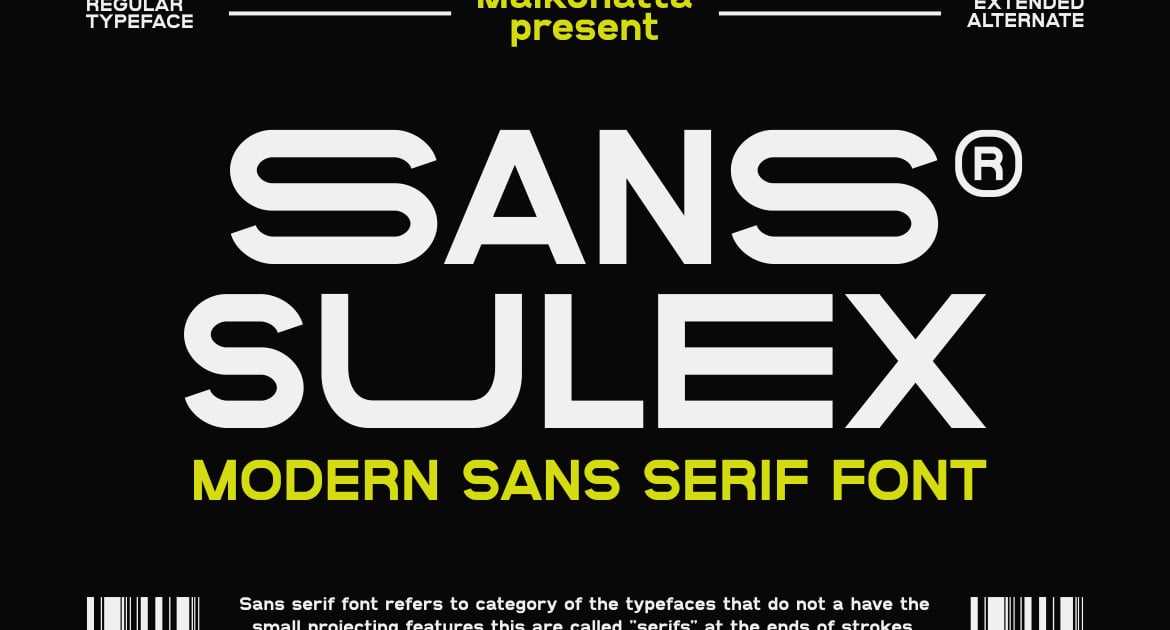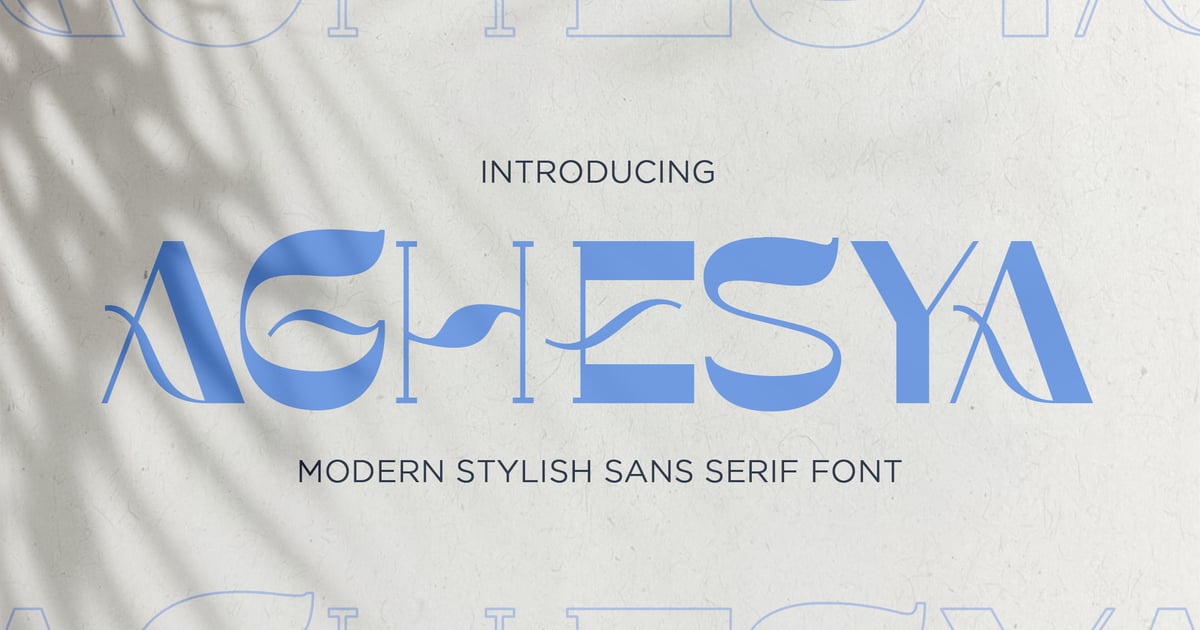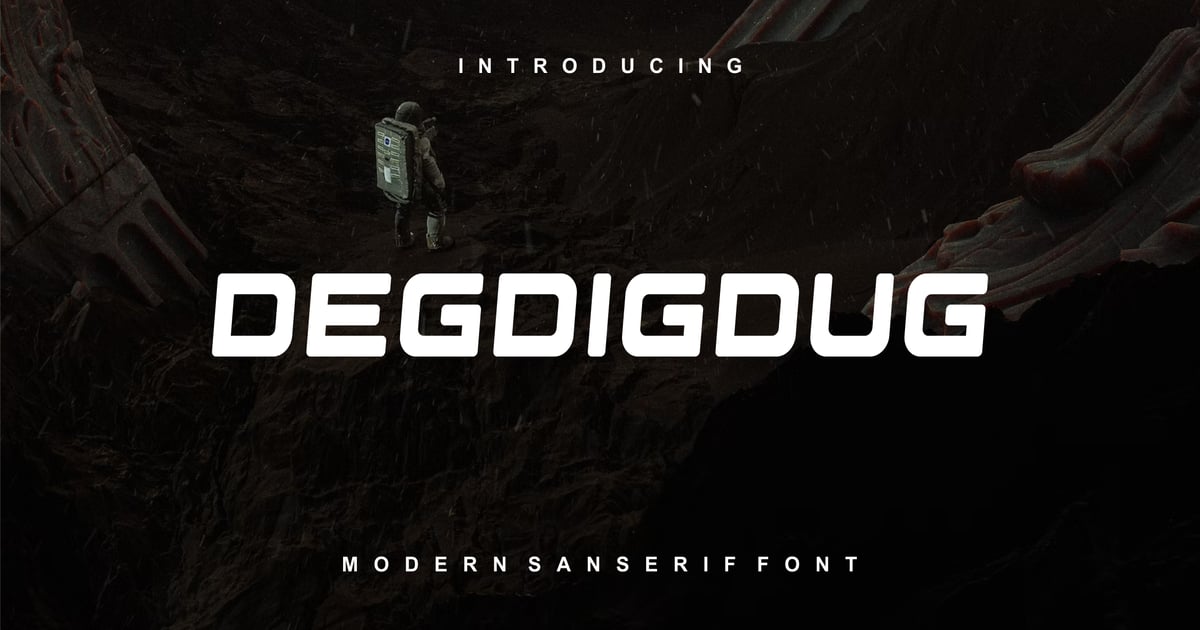
Open ten apps on your phone right now and count how many use a serif in their logo. I’ll wait. If you’re like most people, you land somewhere around zero — and that’s not an accident. Sans serif type has quietly taken over branding, UI, and packaging because it does something serifs can’t: get out of the way. It reads clean on a four-inch screen, holds up printed six feet tall, and never distracts from the message underneath it.
Below, I’ve rounded up some of my favorite modern and legible sans serif fonts for 2026, grouped by exactly what you’d use each one for — branding, UI, business, headlines, or all of the above.
How I Chose These Modern Sans Serif Fonts
Not every sans serif deserves a spot on a list like this, so here’s what I looked for. Legibility at small sizes matters more than it used to, since most people will meet your typography on a five-inch screen before anywhere else. A font needs a genuine range of weights and styles to carry a full brand system, not just look good in a headline. It has to hold up across both print and digital, from a business card to a mobile app icon. And it needs a distinctive character — something that feels like an intentional choice, not a default.
Here are some of my recent favorite finds.
Behavior – Modern Sans Serif
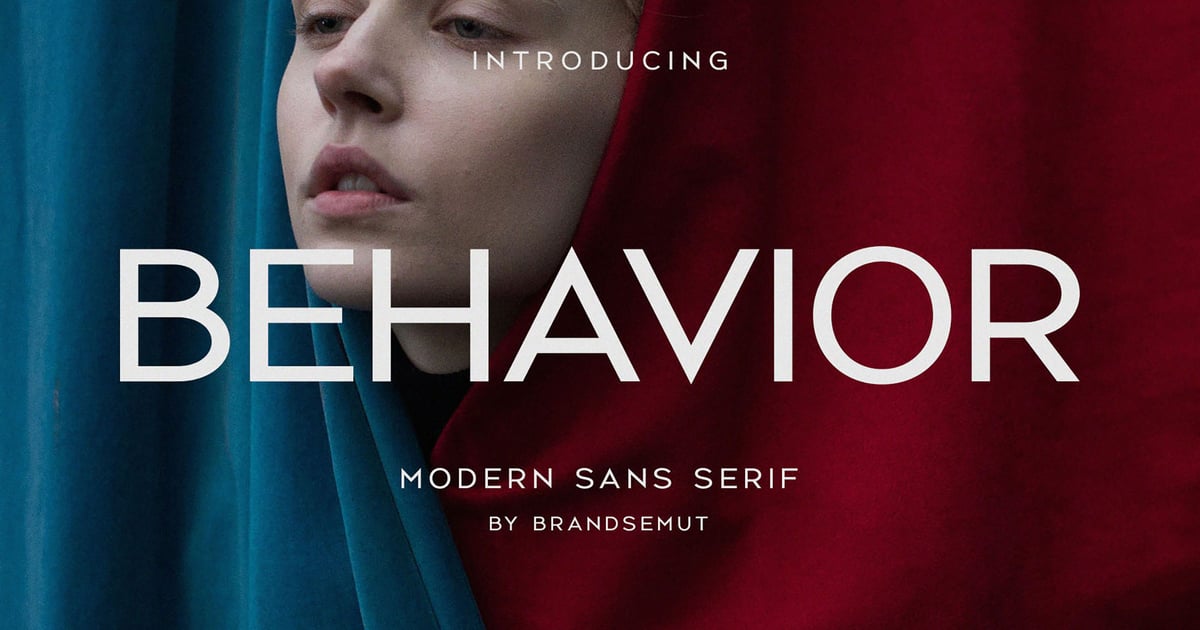
Behavior is a modern sans serif font that brings clean geometry and contemporary sophistication to editorial layouts, branding projects, and digital interfaces. Its balanced letterforms strike an ideal middle ground between approachability and professionalism, making it equally suited for headlines and body copy. The family includes both sans and logotype variations, offering designers flexibility for cohesive visual systems. With its streamlined aesthetic and versatile weight options, Behavior adapts seamlessly across corporate identities, magazine spreads, and web applications where clarity and modern elegance are essential.
Dearly – Modern Sans Serif
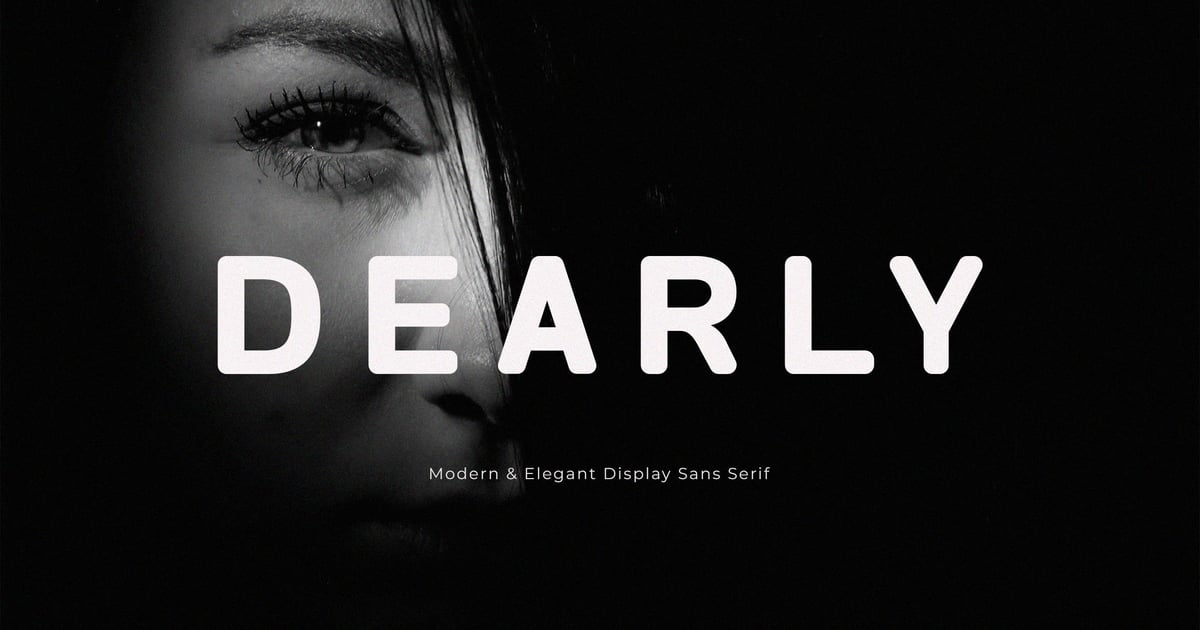
Dearly brings a refined, contemporary edge to typographic design with clean lines and carefully balanced proportions. This modern sans serif font works beautifully across branding projects, editorial layouts, and digital interfaces where clarity and sophistication matter. Its geometric forms maintain readability at any size while adding a polished, professional feel to headlines and body text alike. The typeface includes both standard character sets and logotype variations, giving designers flexibility for wordmarks and visual identities. Perfect for projects seeking an understated yet distinctly current aesthetic.
Dileto | Modern Sans Serif
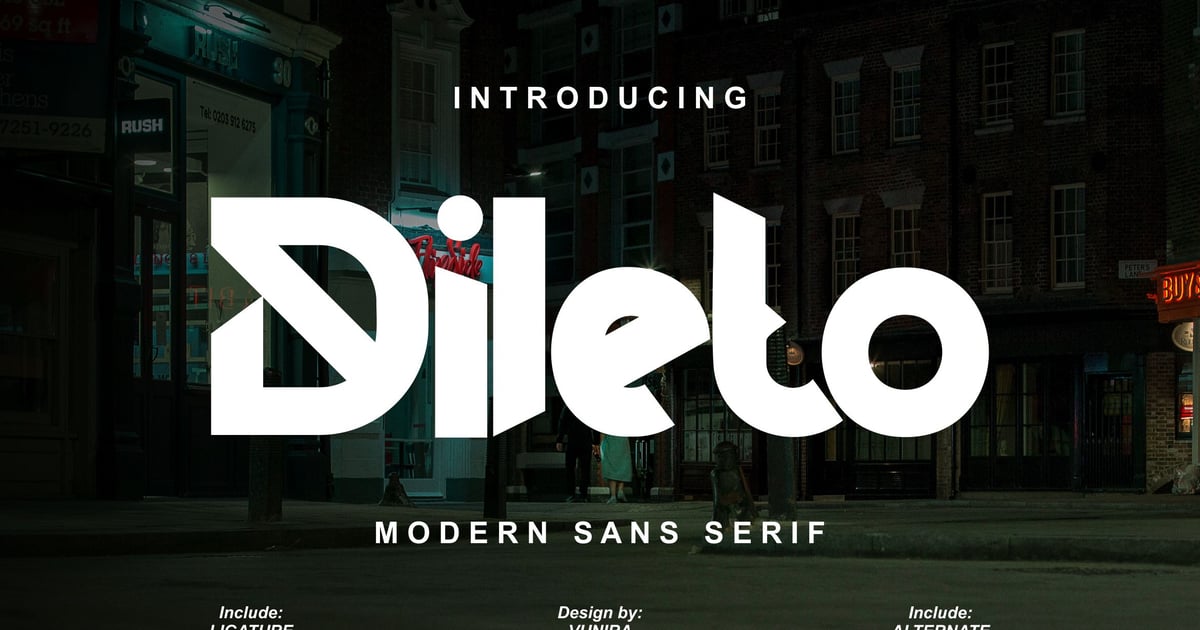
Dileto brings clean geometric shapes and contemporary styling to text-heavy projects. This modern sans serif font balances minimalist letterforms with approachable warmth, making it equally suitable for editorial layouts, website interfaces, and brand identity systems. The typeface includes a full character set with multilingual language support, offering designers flexibility across international projects. Its structured yet friendly appearance works particularly well in tech branding, magazine headlines, and modern packaging design. Files are provided in both TTF and OTF formats for broad compatibility across design applications.
Dazney – Modern Sans Serif
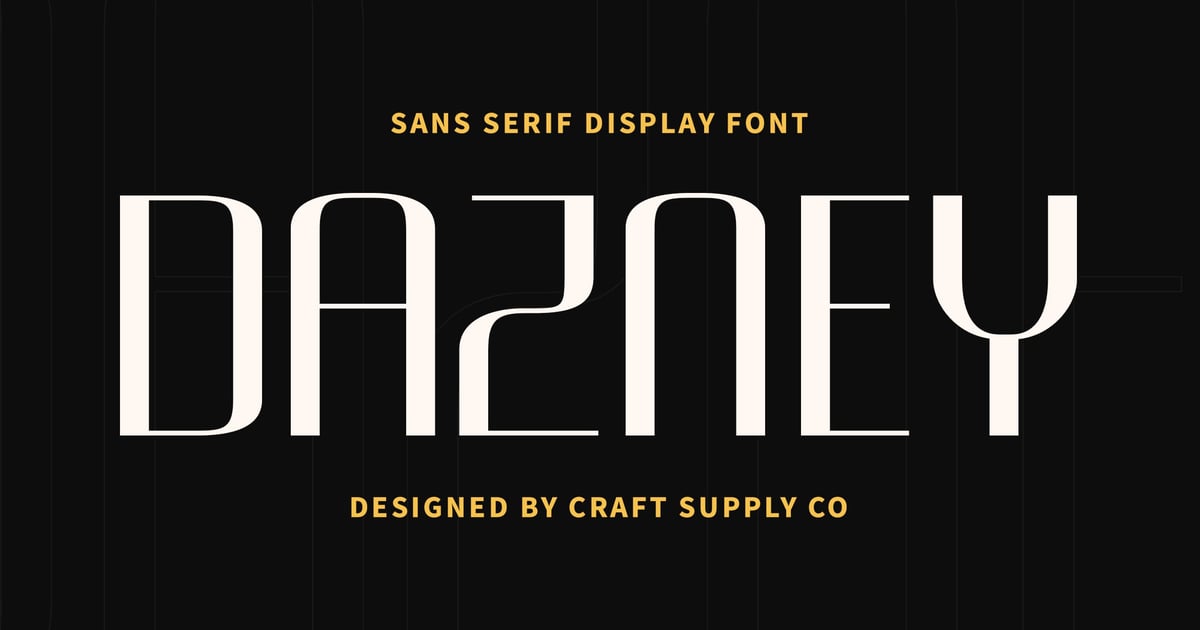
Dazney is a clean, contemporary typeface that brings sophistication to editorial design and branding projects. This modern sans serif font features balanced letterforms and geometric precision, making it ideal for magazine layouts, minimalist websites, and corporate identity systems. The family supports multiple languages and includes uppercase and lowercase characters, numbers, and punctuation marks. Its versatility shines in both headlines and body text, while the straightforward aesthetic ensures readability across print and digital media. Available in standard font formats for immediate use in professional design applications.
Modeling – Modern Fashion Sans Serif
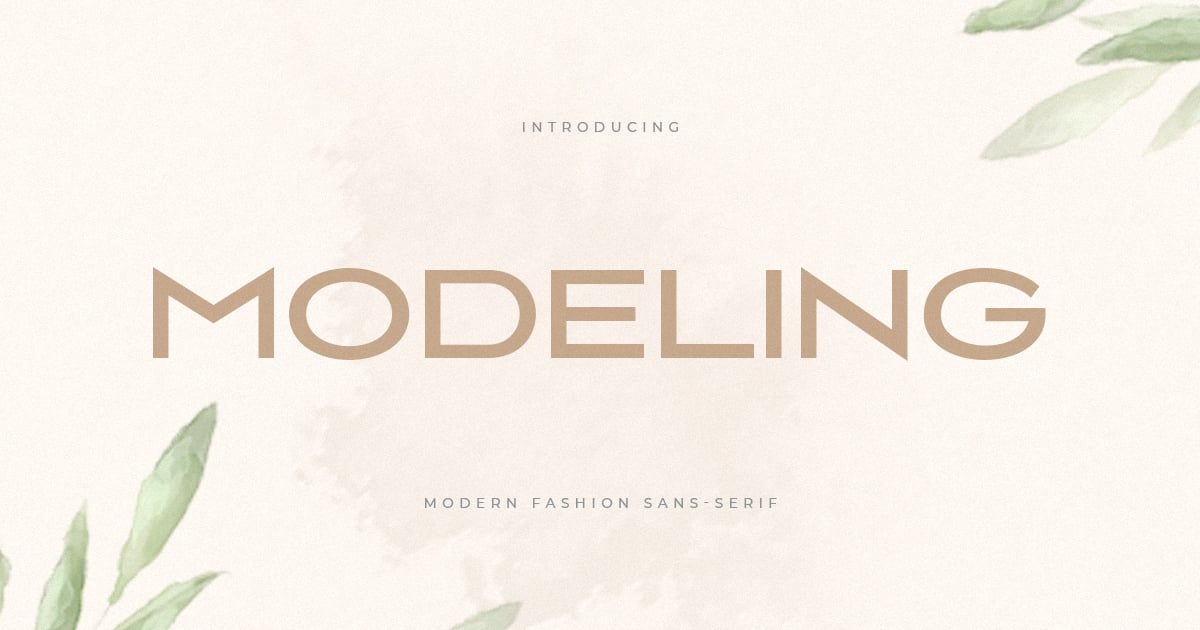
Modeling brings sophisticated minimalism to contemporary fashion branding with its clean, elevated letterforms. This modern sans serif font balances geometric precision with subtle refinements that feel both runway-ready and accessible. The typeface excels in editorial layouts, luxury product packaging, cosmetics branding, and high-end social media content where elegance matters. Its streamlined characters maintain clarity across sizes while projecting an upscale, fashion-forward sensibility. Perfect for designers seeking a polished, contemporary aesthetic that speaks to style-conscious audiences without overwhelming the visual narrative.
Modo – Modern Minimal Sans Serif Font
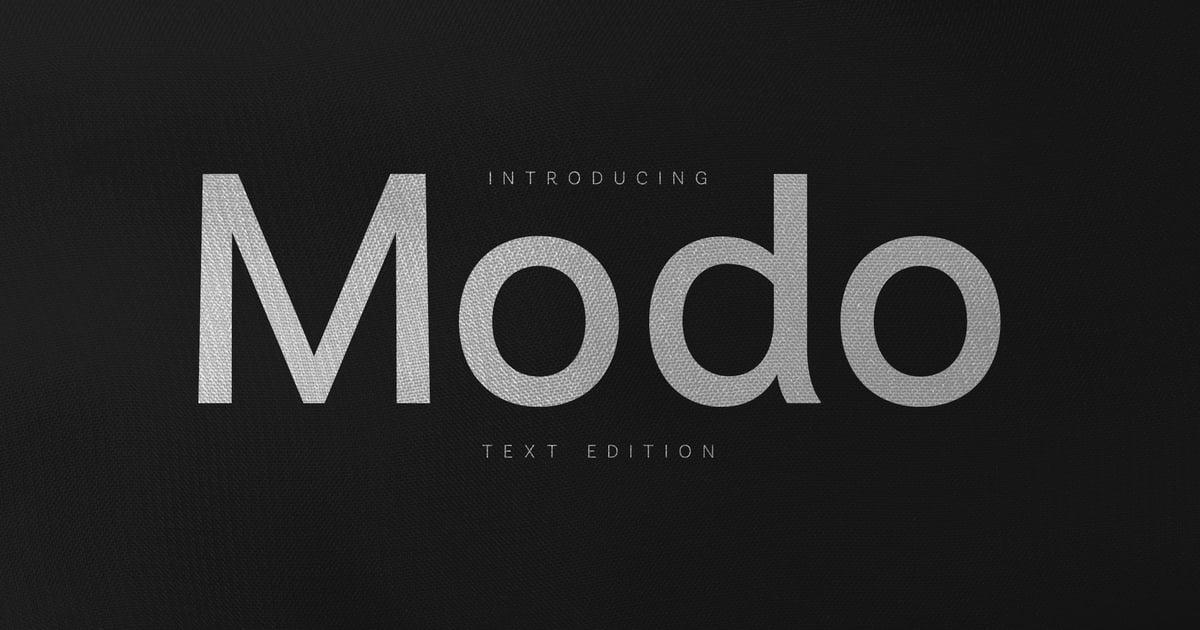
Modo is a sleek modern sans serif font built on principles of simplicity and geometric precision. Its clean lines and minimalist aesthetic make it ideal for contemporary branding, editorial layouts, and digital interfaces where clarity matters most. The typeface strips away unnecessary ornamentation while maintaining excellent readability across print and screen applications. Perfect for tech startups, fashion labels, or architectural portfolios seeking a refined, understated voice. Modo works beautifully in both display sizes and body text, offering designers a versatile tool for projects demanding sophistication without excess.
Break Makers Modern Sans Serif
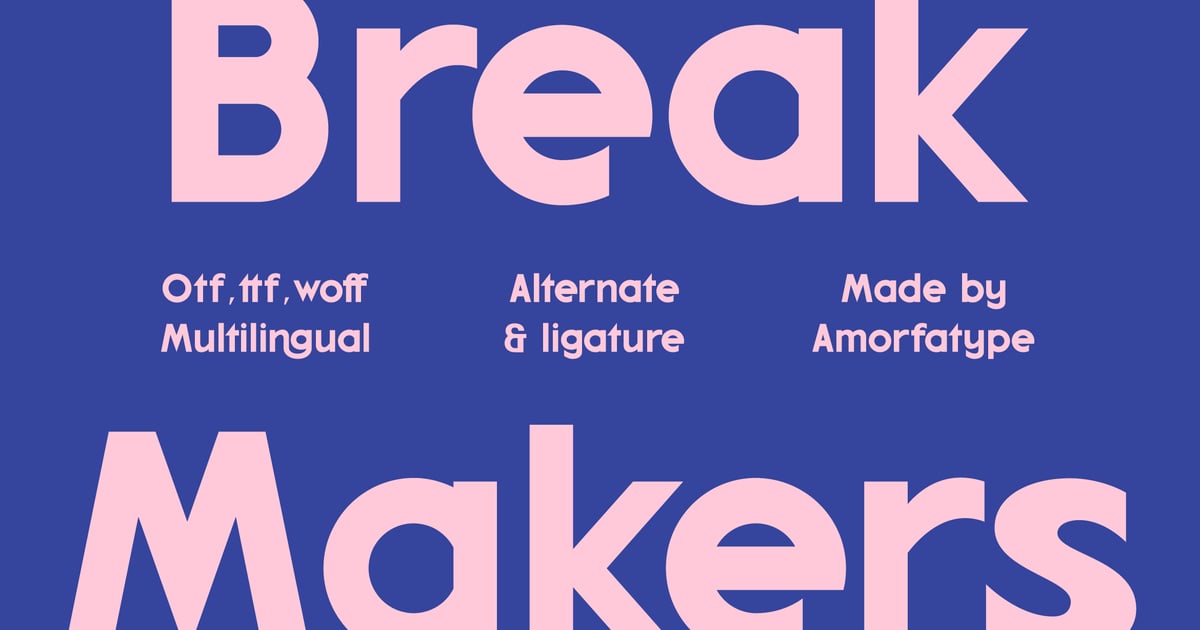
Break Makers is a contemporary typeface that balances clean geometry with distinctive character. This modern sans serif font brings a bold, confident presence to headlines, branding projects, and editorial layouts where impact matters. Its letterforms feature subtle personality quirks that set it apart from standard sans designs while maintaining excellent readability across applications. The family supports multilingual typesetting and includes uppercase and lowercase characters, numerals, and punctuation. Available in both TTF and OTF formats, it’s well-suited for packaging, posters, and digital interfaces requiring a fresh, authoritative voice.
Modern sans serif design keeps moving fast, and there’s rarely a single right answer — just the right font for what you’re building right now. Bookmark this list, come back to it next time you’re starting a new brand or refreshing an old one, and don’t be afraid to mix a couple of these together until something clicks.